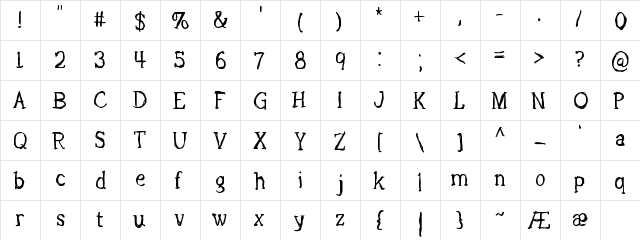
Lights Out BRK Regular
| Foundry | ƎIGMA FONTS |
| Designer | ƎIGMA FONTS - Brian Kent |
Design Context for Lights Out BRK Typeface
Lights Out BRK is a composed and adaptable typeface that performs quietly and consistently across a wide range of design contexts. The delicate stroke weight brings airiness and refinement to layouts.